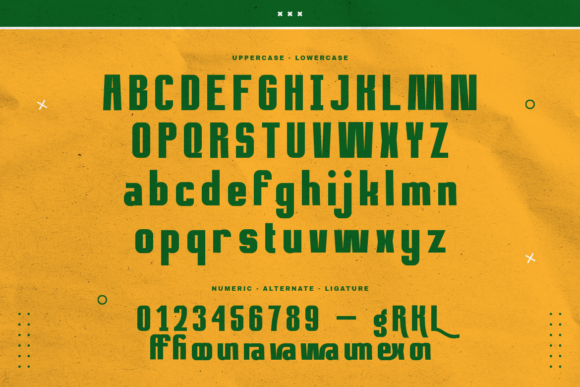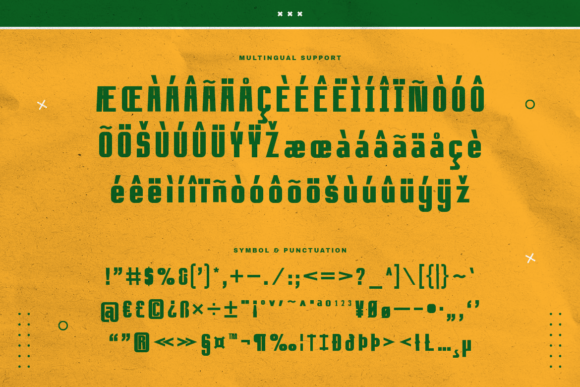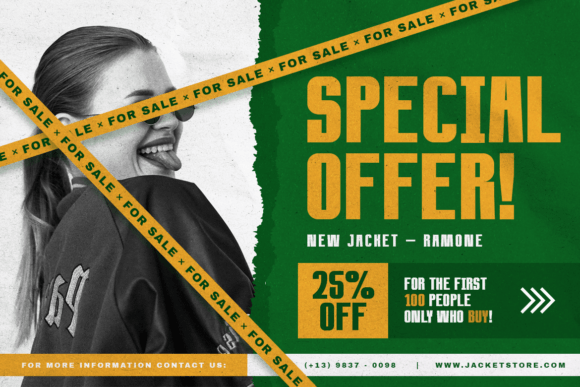
Introduction to Ramone Font
As designers, we’ve all been there – staring at a blank canvas, searching for the perfect typeface to bring our creative vision to life. The right font can elevate a project from good to great, and in the world of typography, few fonts are as bold and impactful as Ramone Font. With its robust, assertive characters and neat contours, Ramone is the ultimate design resource for any project that demands attention.
Whether you’re working on a high-quality brochure, a poster for a local event, or a digital campaign, Ramone Font is the perfect choice. Its versatility shines through as it seamlessly transitions from print to digital media, ensuring your message is conveyed with unambiguous elegance and panache. And the best part? Ramone Font is available for free download, making it an accessible and valuable addition to any designer’s toolkit.
- High-quality, stylish design perfect for creative projects and artistic expressions.
- Unique, handcrafted design elements make it perfect for adding a personal touch to creative projects.
Honest Review: Ramone Font
I recently had the chance to work with the Ramone Font, and I must say it’s been a game-changer for my creative projects. As a designer, I’m always on the lookout for high-quality design resources that can help me stand out from the crowd.
One of the things that I love about the Ramone Font is its clean and modern aesthetic. It’s perfect for creating a professional look without looking too corporate. The font is available for free download, which is a huge plus in my book. Plus, it’s a great option for anyone looking for a design resource with a transparent background.
Here are some of the things that work well with the Ramone Font:
- ✨ Clean and modern aesthetic
- ✨ High-quality design
- ✨ Transparent background
- ✨ Perfect for creative projects
That being said, there are a few limitations to keep in mind:
- ⚠️ Limited font sizes and styles available
- ⚠️ May not be suitable for certain design projects
Overall, I’m really impressed with the Ramone Font. It’s a great addition to any designer’s toolkit, and I would highly recommend it to anyone looking for a high-quality, free design resource.
The Ramone Font is perfect for creative projects such as graphic design, branding, and digital marketing. Use it to create social media graphics, blog posts, or presentations that stand out from the crowd.
Alternatives to Ramone Font
Montserrat is a high-quality sans-serif font perfect for designers working on creative projects that require a modern and sleek look. It’s ideal for use on transparent backgrounds or as a primary font in logos and branding materials.
Montserrat is similar to Ramone Font in its clean and minimalist design, but it has a more geometric feel. If you’re looking for a font that’s easy to read and works well in small sizes, Montserrat is a great alternative.
Open Sans is a popular and versatile font that’s perfect for designers working on high-quality design projects. It’s a great choice for use in body text, headings, and even as a display font. Open Sans is ideal for use on transparent backgrounds or as a primary font in creative projects.